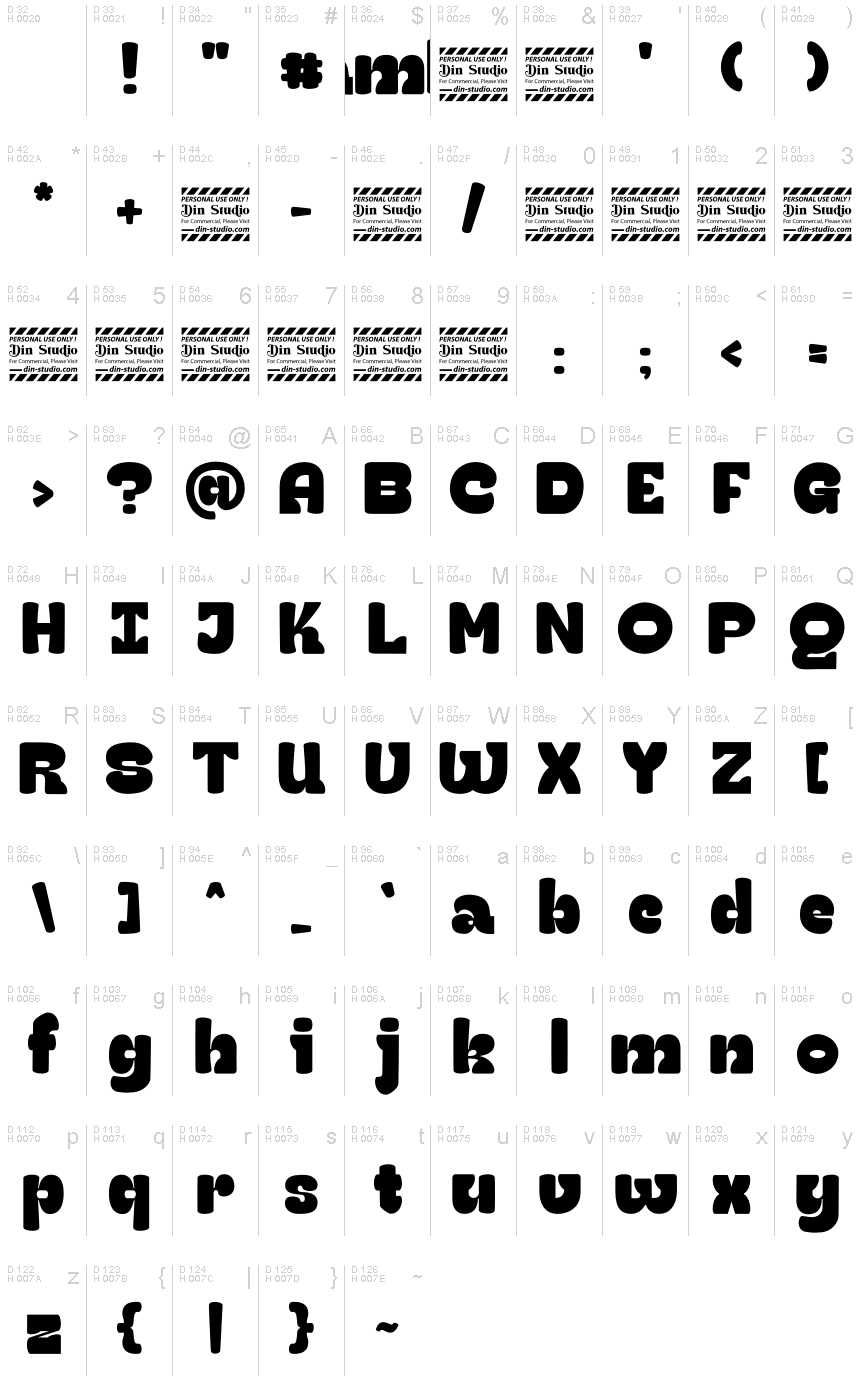
Gamby Regular Personal Use
Gamby font, designed by Din Studio, radiates a bold retro charm that instantly captures attention. Its strikingly expanded form offers a sense of freedom and playfulness, making it an ideal choice for designs that seek to evoke nostalgia while remaining modern. The robust weight adds an inviting presence, ensuring each letter stands out with confidence.
This unique design is perfect for vibrant branding, eye-catching advertisements, and lively event posters. Whether used in playful headlines or as part of a creative logo, Gamby brings an element of fun and dynamism to any project. Its aesthetic appeal lies not just in its visual impact but also in its versatility across various design contexts where personality and flair are paramount.